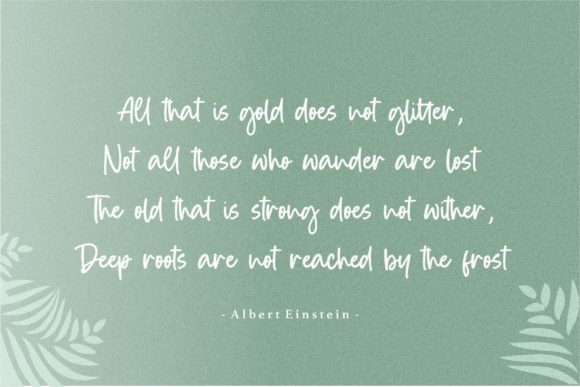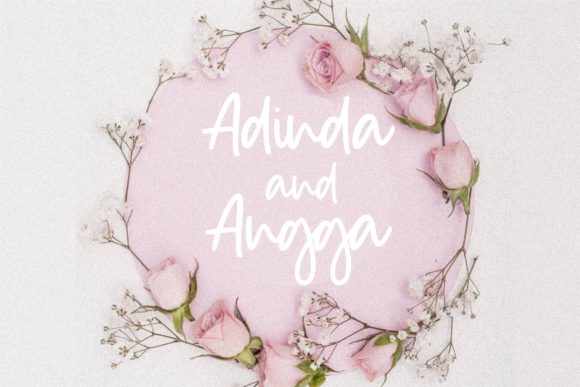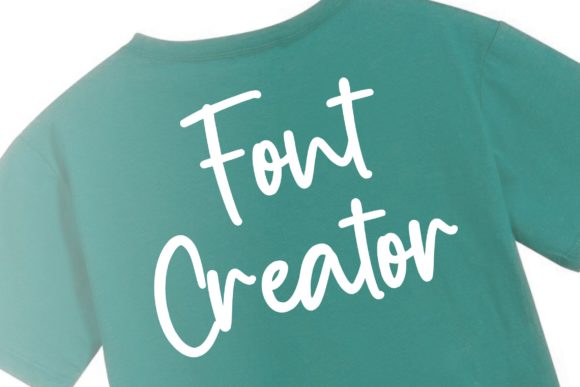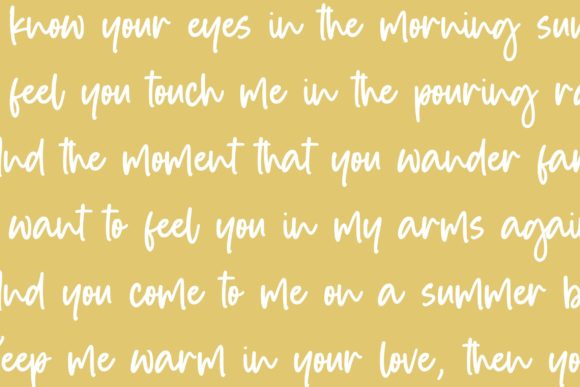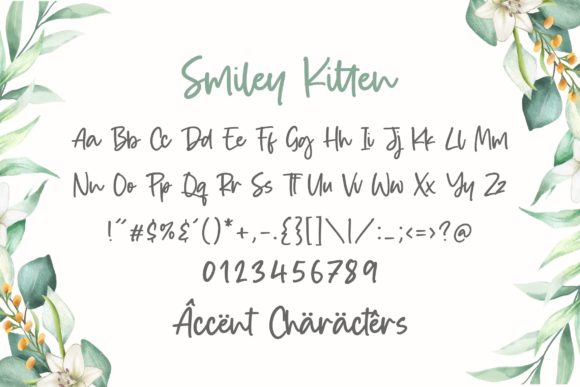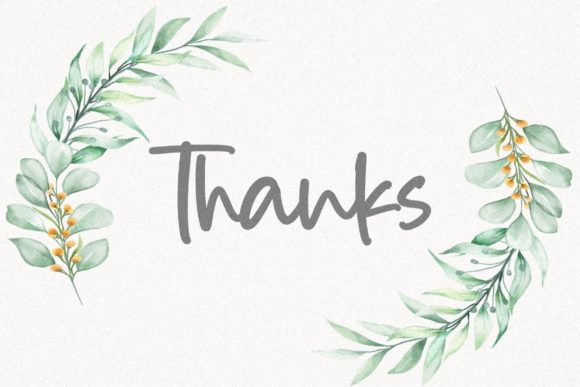
Introduction to Smiley Kitten Font
As a designer, you know that sometimes it’s the smallest moments that spark the biggest ideas. You’re sitting at your desk, staring at a blank canvas, and suddenly, a smile spreads across your face as you think of the perfect font to bring your creative project to life. That’s exactly what happened when I stumbled upon the adorable Smiley Kitten Font.
This sweet and friendly handwritten font is a design resource like no other. Its natural and unique style makes it incredibly fitting to a wide range of designs, from playful posters to heartfelt greeting cards. And the best part? The Smiley Kitten Font is available for free download, making it a valuable addition to any designer’s toolkit.
With a transparent background and high-quality design, the Smiley Kitten Font is perfect for adding a touch of whimsy and personality to your next creative project. Whether you’re working on a children’s book, a social media campaign, or a wedding invitation, this font is sure to bring a smile to your face and a sparkle to your design.
Key Features of Smiley Kitten Font
- Unique design: Smiley Kitten Font features a playful and cute design, perfect for creative projects that require a lighthearted and humorous touch.
- High-quality font: This font is designed with high-quality vectors, ensuring a crisp and clear appearance, even at large sizes.
- Perfect for design projects: Smiley Kitten Font is an excellent resource for designers, artists, and creatives working on various projects, from social media graphics to advertising materials.
Honest Review: Smiley Kitten Font
I recently came across the Smiley Kitten Font and was excited to give it a try. As a designer, I’m always on the lookout for new and unique fonts to add to my design resource library.
First impressions are everything, and the Smiley Kitten Font definitely delivers. The high-quality design and cute aesthetic make it perfect for creative projects where a touch of whimsy is needed. ✨ The transparent background option also makes it easy to integrate into any design.
The font comes in a free download, which is always a bonus. However, I did notice a few limitations. ⚠️ The font selection is limited to a single style, which might not be ideal for designers who like to have more options. Additionally, the font size and spacing can be a bit inconsistent, which may require some manual tweaking.
Overall, the Smiley Kitten Font is a great addition to any designer’s library. While it may not be perfect, its unique design and high-quality construction make it a valuable resource for creative projects.
- Perfect for creative projects that need a touch of whimsy
- High-quality design and transparent background option
- Limited font selection and inconsistent font size and spacing
The Smiley Kitten Font is a free download for designers, ideal for creative projects that require a unique and playful touch. This high-quality font features a transparent background, making it versatile for various design applications.
Tips for Getting the Most Out of Smiley Kitten Font
For optimal results, use the Smiley Kitten Font in conjunction with other playful design elements, such as bright colors and whimsical graphics.
The Smiley Kitten Font is ideal for various creative projects, including:
- Children’s book covers
- Party invitations
- Blog posts and social media graphics